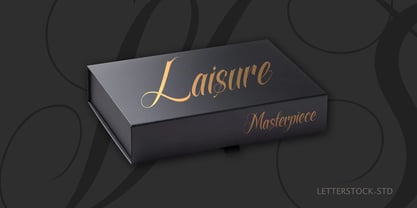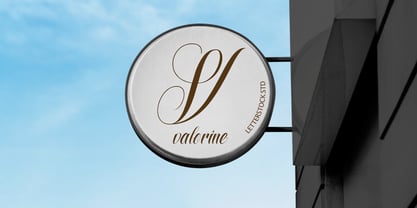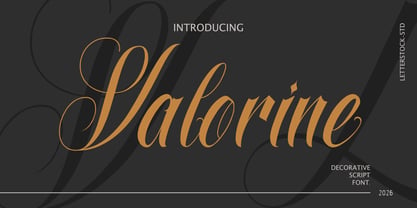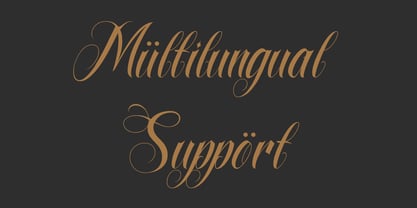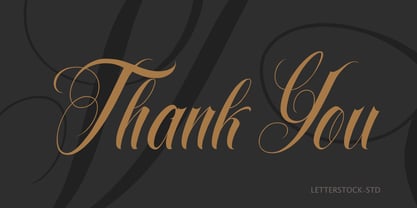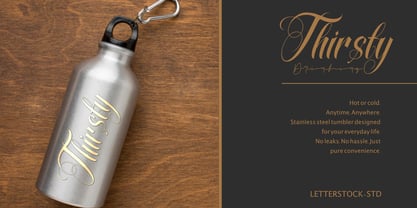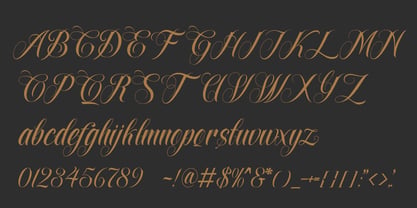
Valorine
by LetterStock
The Valorine Font Family was designed by Studio LetterStock and published by LetterStock. Valorine contains 1 styles. More about this family
Valorie – Decorative Script Font
Valorie is a refined decorative script font that blends elegance with expressive character. Designed with graceful curves and flowing strokes, this typeface brings a sophisticated yet artistic feel to any visual project.
Each letter is carefully crafted to create a natural handwritten rhythm, making Valorie perfect for designs that aim to feel personal, stylish, and premium. Its smooth connections and ornamental details add a timeless charm, while still maintaining readability across various applications.
Whether you’re working on branding, logos, invitations, social media graphics, posters, or editorial layouts, Valorie elevates your design with a touch of luxury and creativity.
Features:
• Elegant and decorative script style
• Smooth, flowing letterforms
• High-quality glyph design
• Suitable for both digital and print use
• Perfect for titles, logos, and standout typography
Valorie is more than just a font—it’s a statement of style and emotion, crafted to make your designs feel truly special.